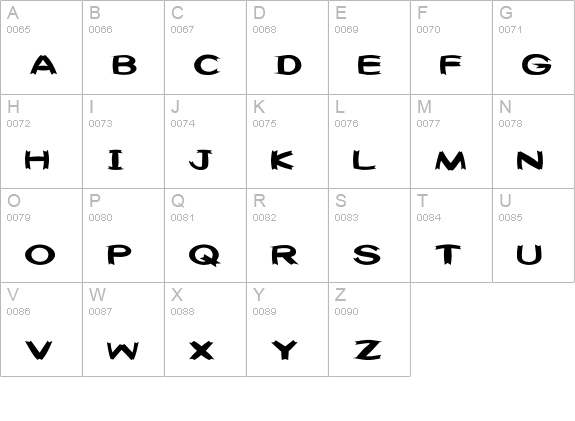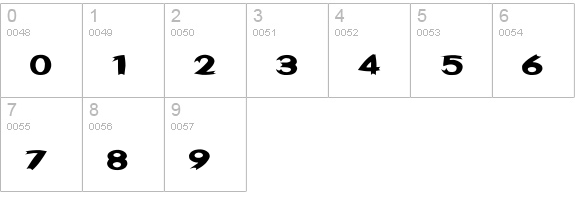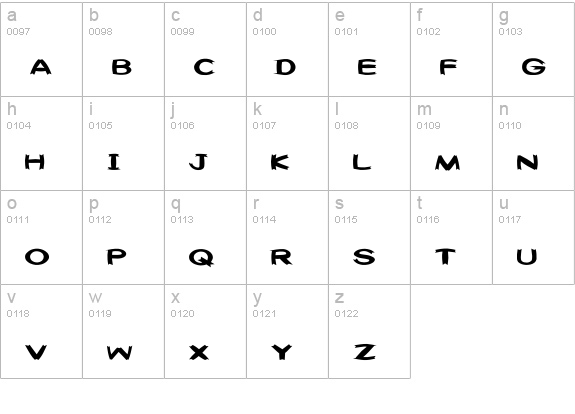
Washable (sRB) Font Details
The Washable (sRB) font is a versatile and modern typeface that is perfect for a wide range of design projects. Its clean and crisp letterforms make it easy to read, while its unique design elements add a touch of sophistication. This font is not only aesthetically pleasing, but it is also incredibly functional. With its wide range of weights and styles, you can use the Washable (sRB) font to create eye-catching headlines, elegant logos, and stunning typography for both print and digital media. One of the best things about the Washable (sRB) font is that it is completely free. That's right, you can download this amazing font for absolutely no cost at FontsMarket.com. Whether you're a professional designer looking to add a fresh and modern touch to your projects or a hobbyist looking to experiment with new fonts, Washable (sRB) is the perfect choice. So why wait? Head over to FontsMarket.com today and download the Washable (sRB) font for free. Enhance your designs with this versatile and stylish typeface, and take your creations to the next level.